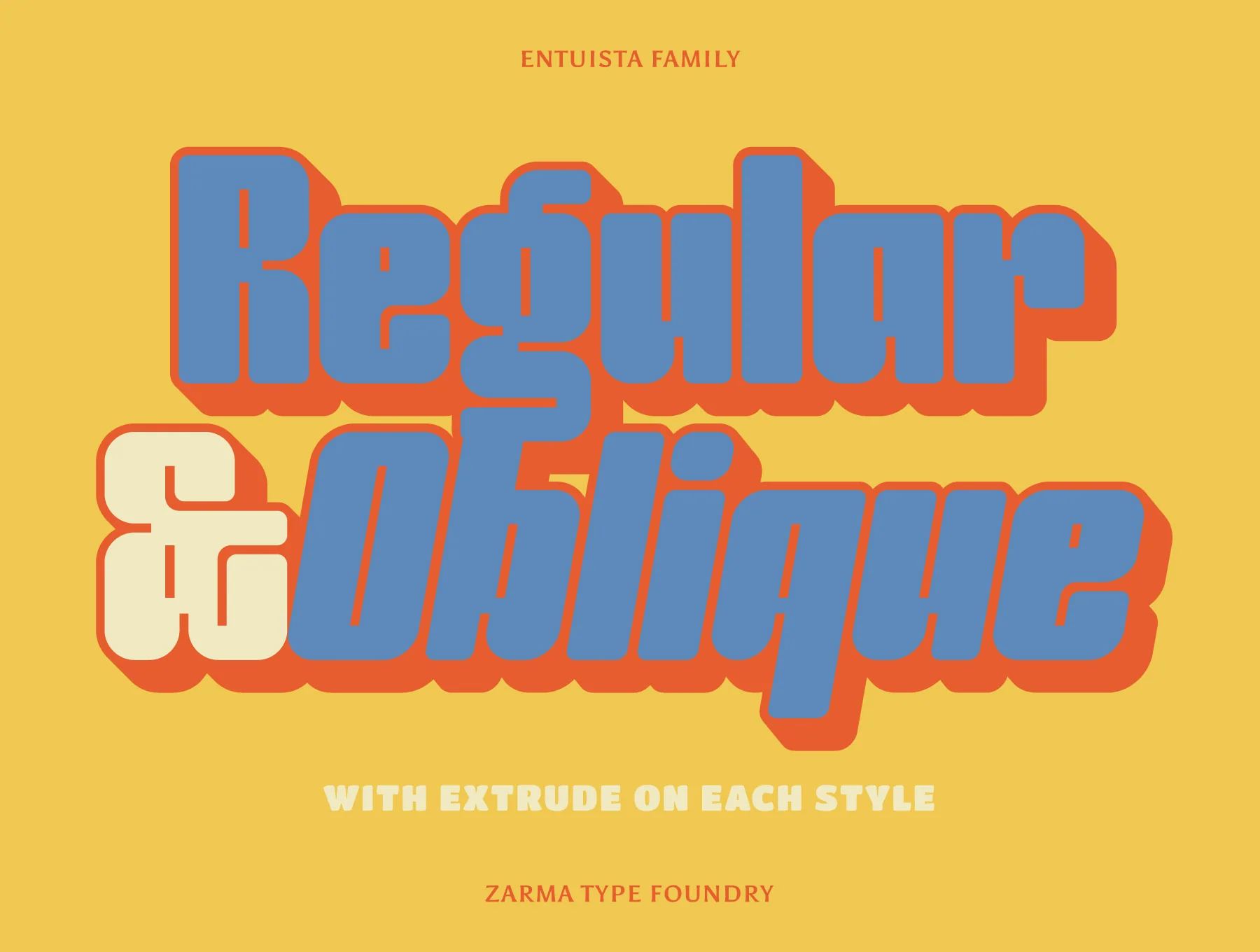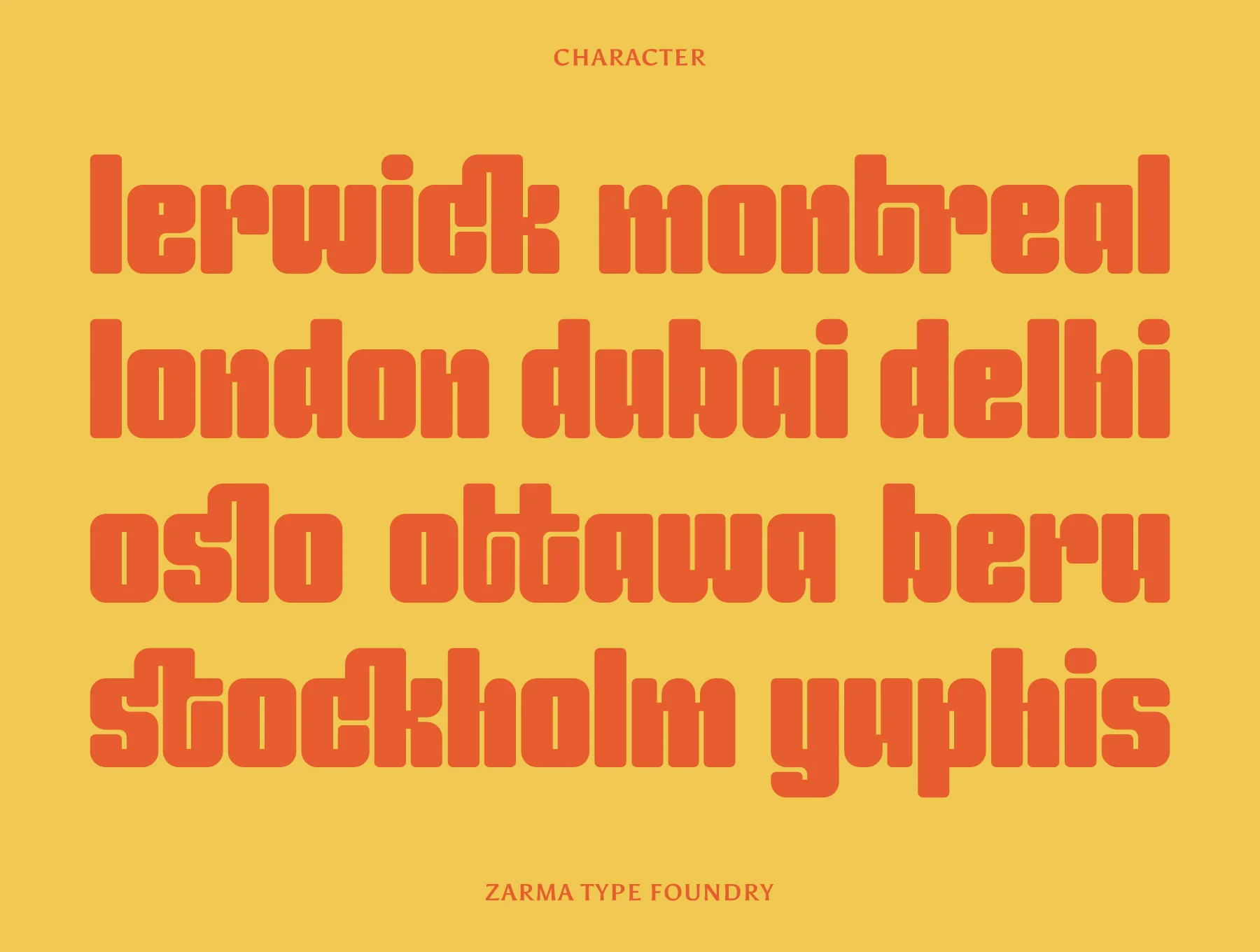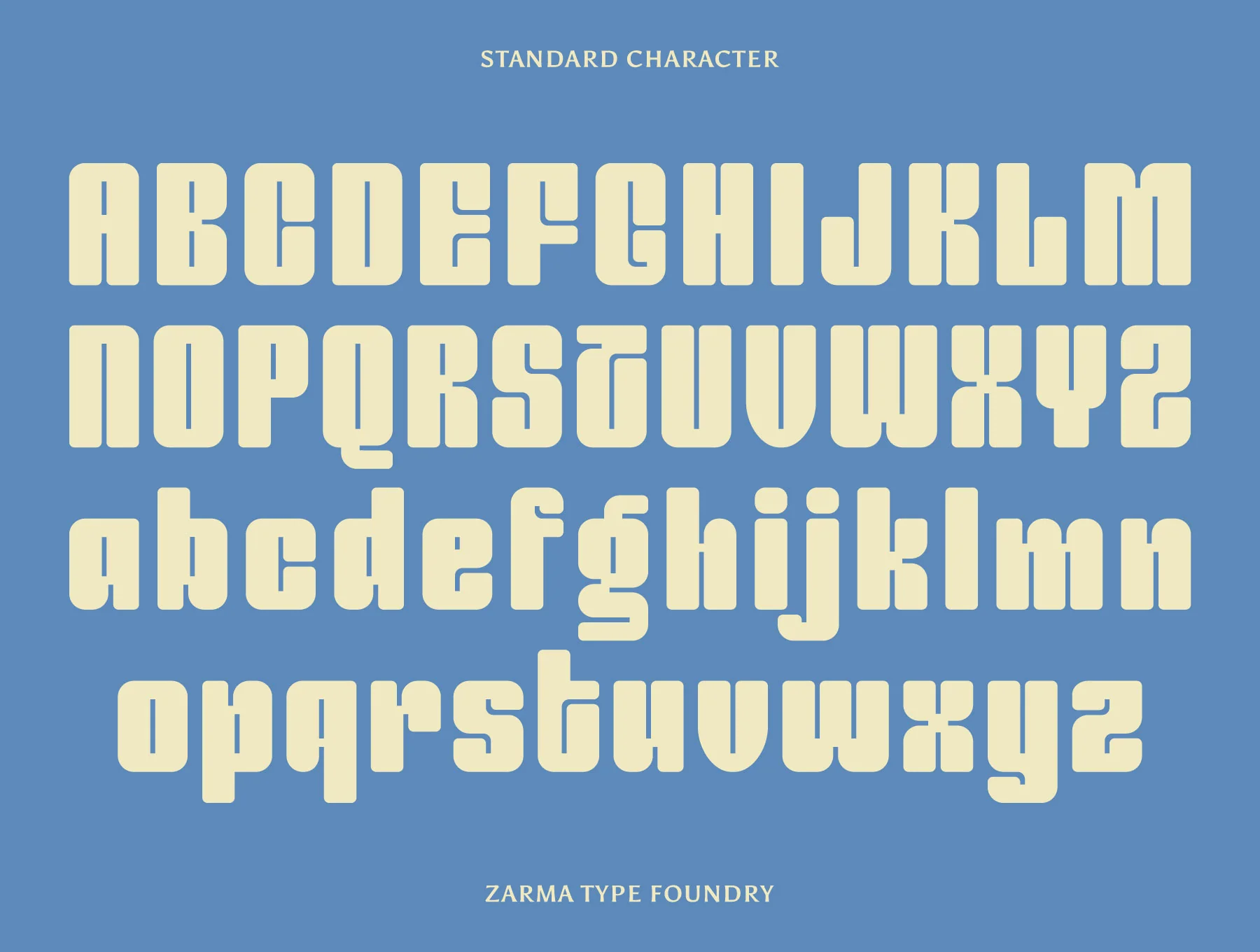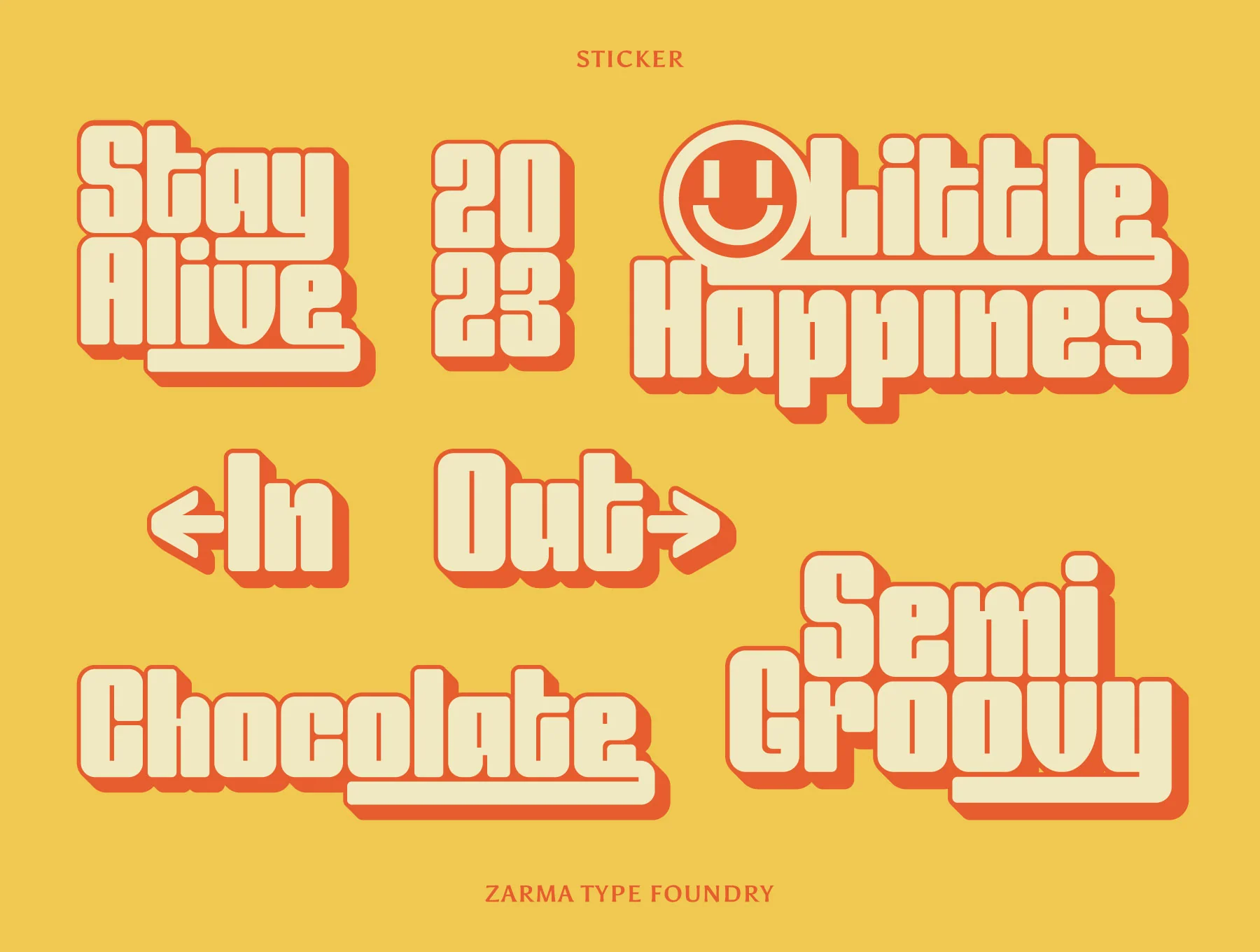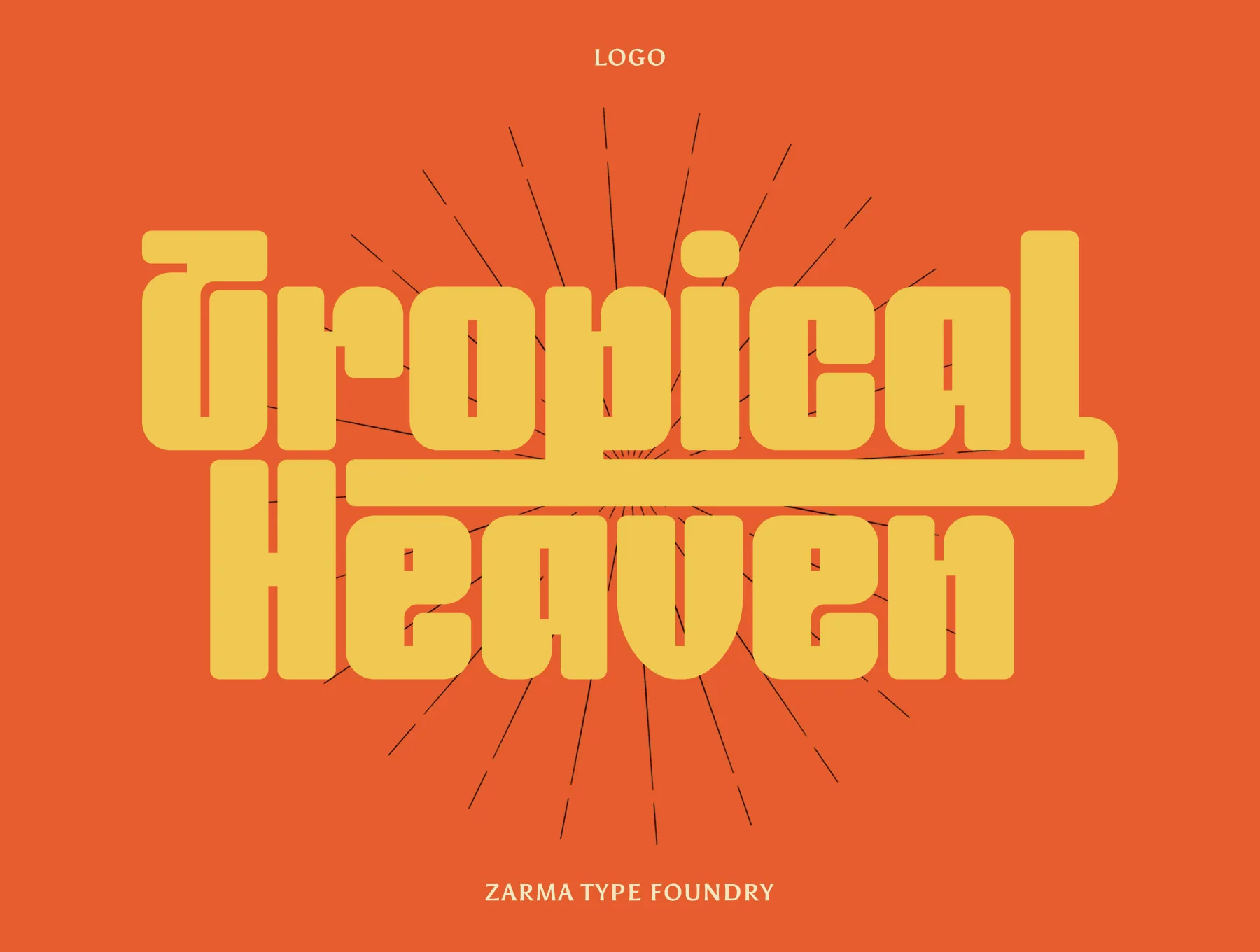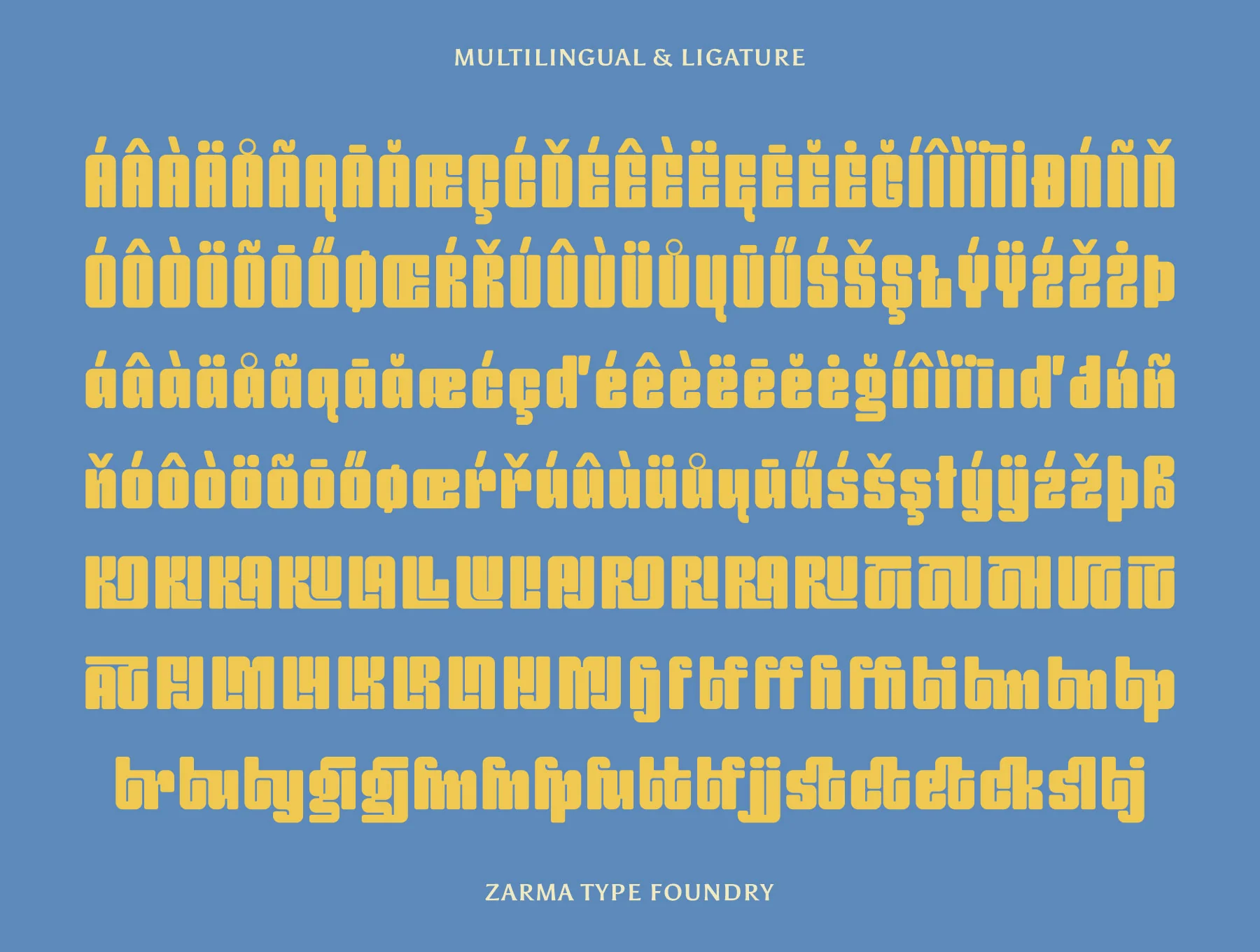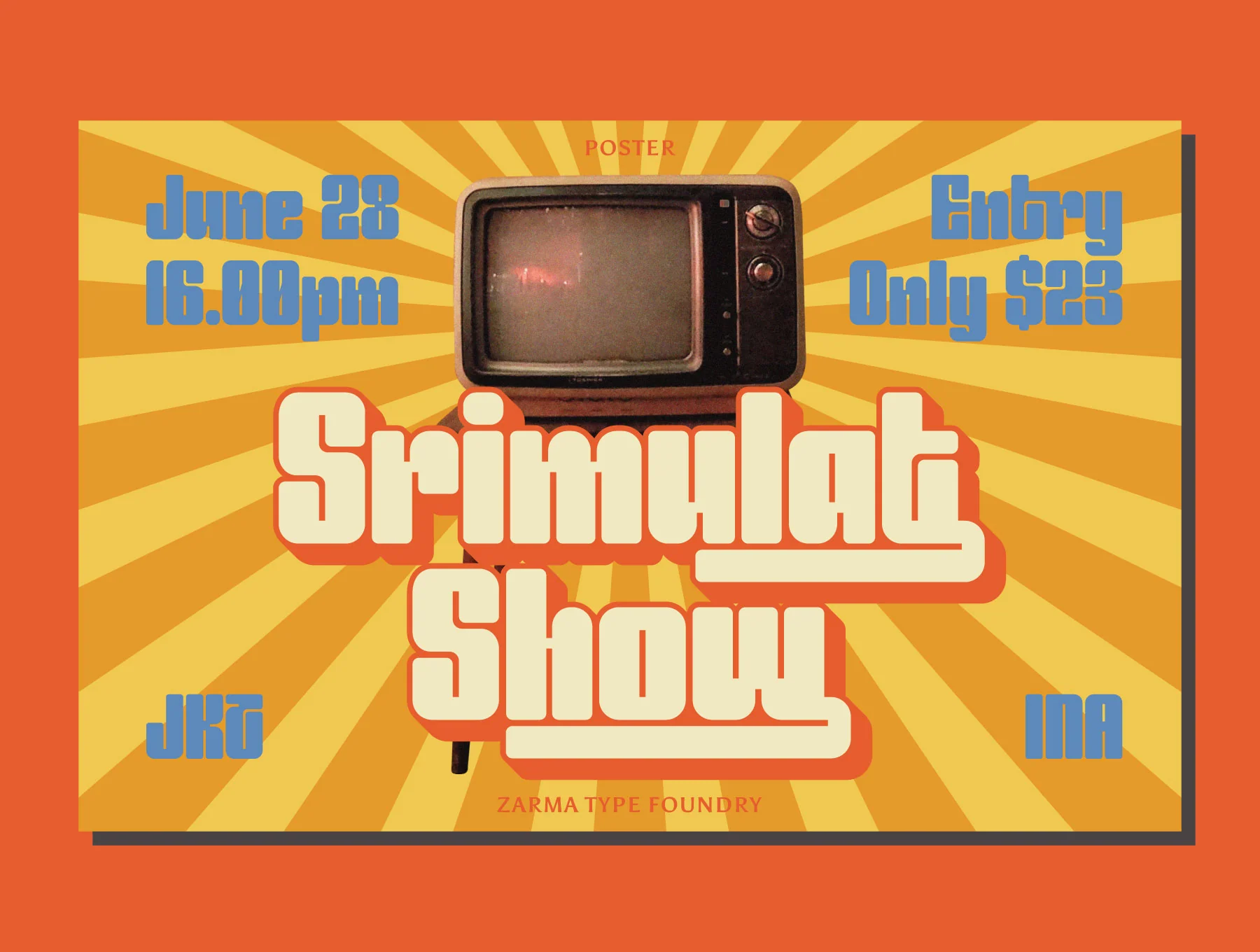
Entuista - Bold Display Font
A perfect fusion of funky vintage style and striking typography.
Uppercase, lowercase, numbers, and punctuation
Alternate stylistic characters with ending swashes
Four styles: Regular, Oblique, Regular Extrude, and Oblique Extrude
Bring retro energy to your work with Entuista, a chunky square typeface packed with groovy character. It includes regular, oblique, and matching extrude versions for bold layered effects. Perfect for baseball graphics, branding, and funky nostalgic designs. Files: Entuista Regular, Oblique, Regular Extrude, Oblique Extrude. Access alternates via Glyphs in Photoshop or Illustrator.